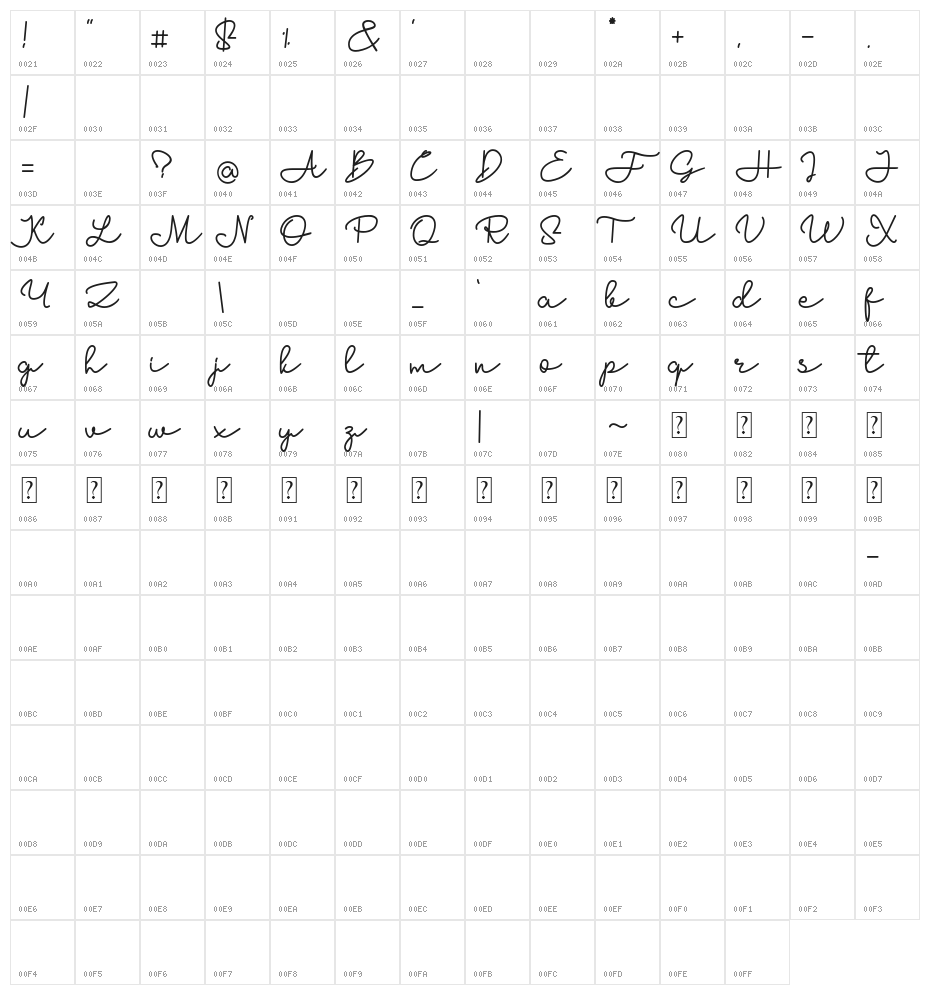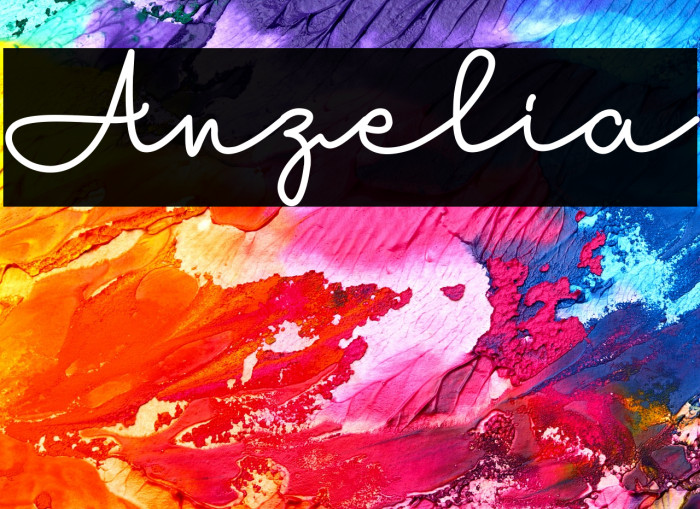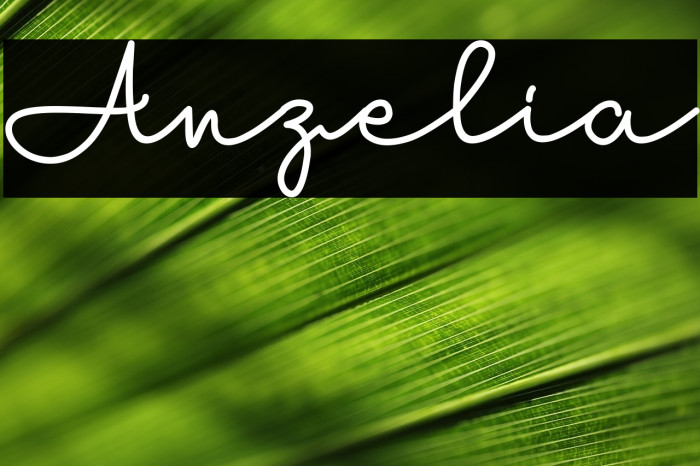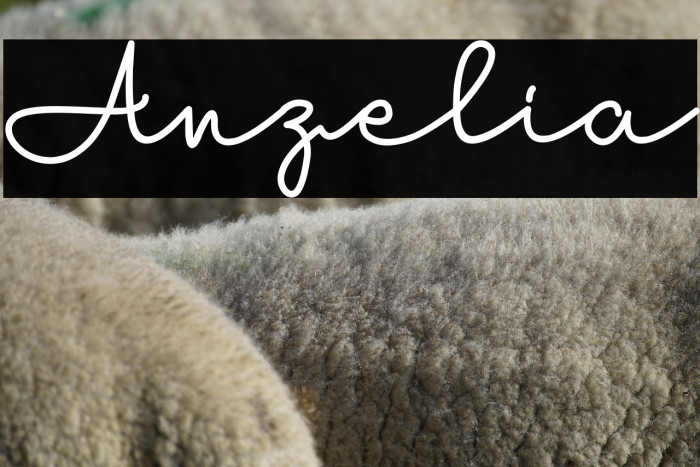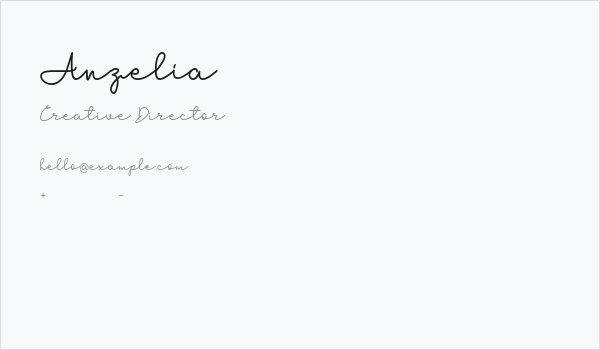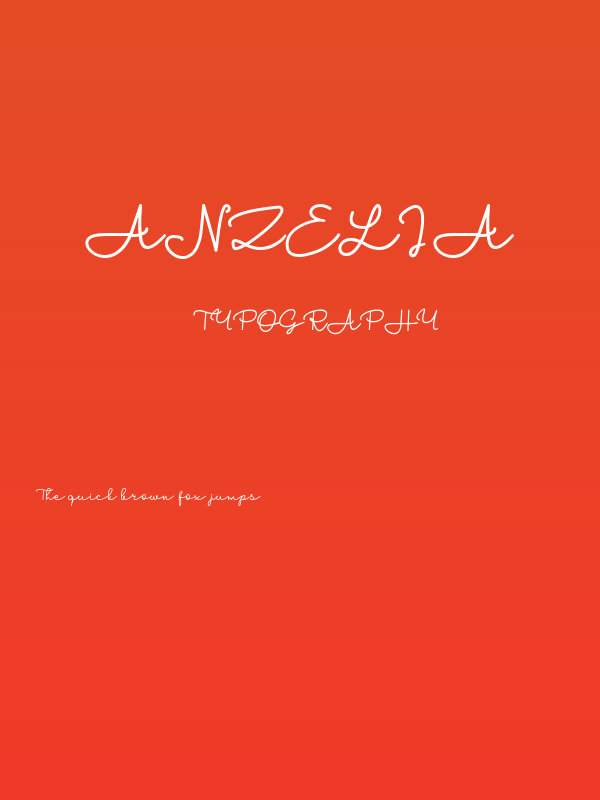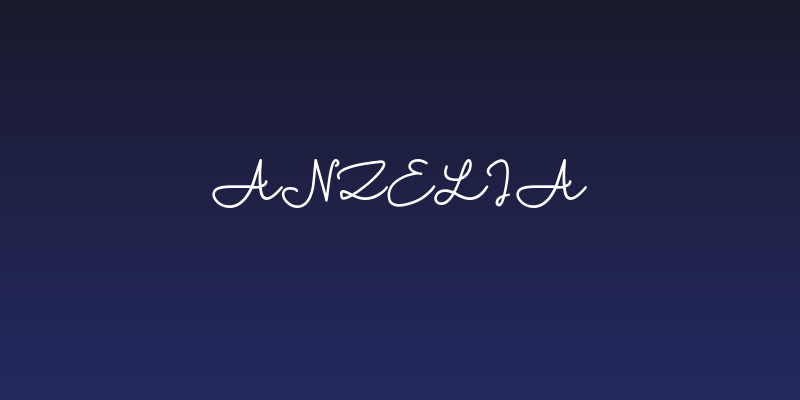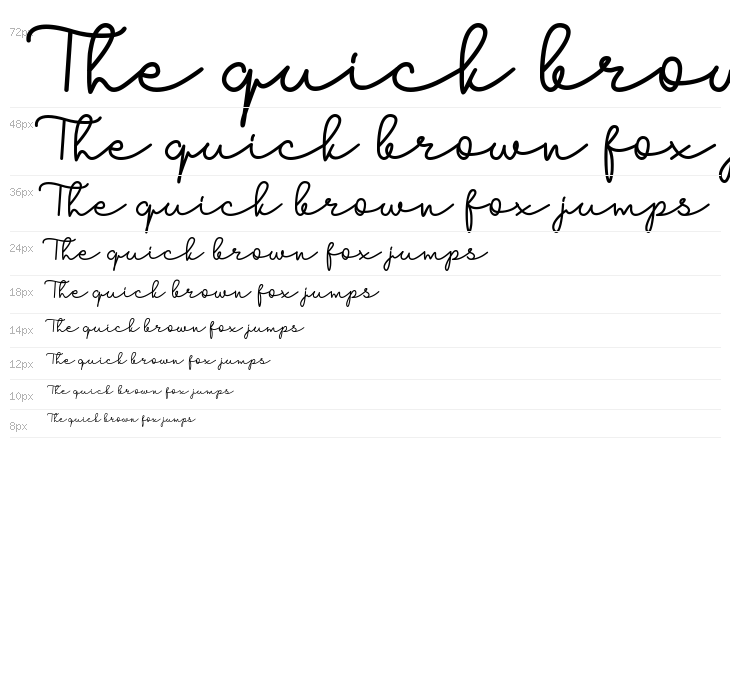
Anzelia Font
Anzelia Description
This font exudes a charming and elegant script style, characterized by its fluid, cursive strokes that mimic the natural flow of handwriting. The uppercase letters are gracefully connected, while the lowercase letters maintain a consistent, smooth rhythm. The font's design is both sophisticated and approachable, making it suitable for a variety of applications. The characters are well-balanced with a slight slant, adding to the overall dynamic feel. The special characters are thoughtfully integrated, maintaining the font's cohesive aesthetic. This script font is perfect for projects that require a personal touch, such as invitations, greeting cards, or branding materials.
| Proposed Projects | Ideal for wedding invitations, greeting cards, personal branding, and elegant packaging. |